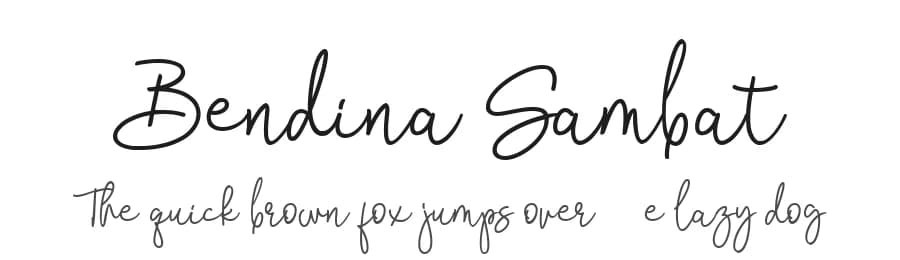
About Bendina Sambat Font
| Designer | Aldedesign 2019 (Alde Saputro) |
Bendina Sambat Font is a script font that shines as a display or heading face. Pair it with a clean sans-serif or serif font for body text β the contrast creates a clear hierarchy while the two styles stay balanced and easy to read.
Bendina Sambat Font